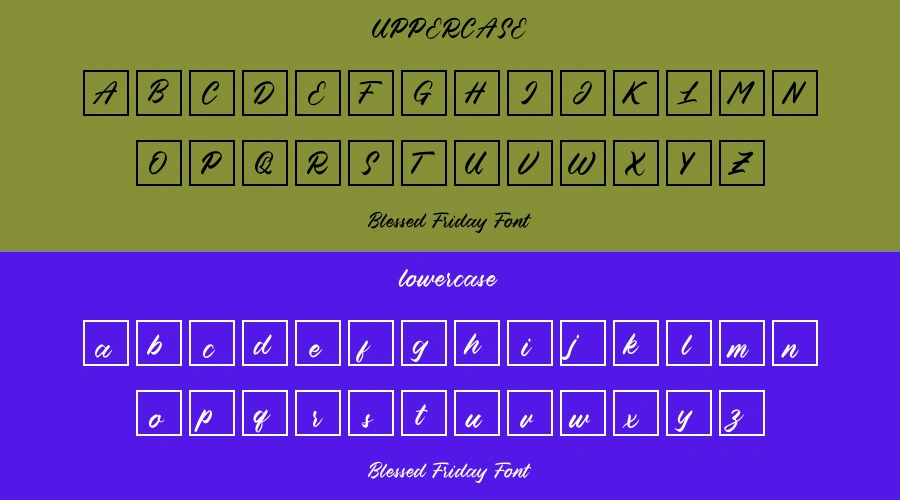
About Blessed Friday Font
Blessed Friday Font represents a sophisticated approach to type design, balancing pen-inspired details with durability. Perfect for corporate reports, this font family showcases impressive flexibility and refinement throughout its character set. Designers appreciate its versatility and reliability.
Designers will appreciate nuanced touches including harmonic curves and contextual ligatures, adding sophistication to any project. These features become apparent in point-of-sale displays, where detail retention matters most. The careful treatment of stem weight and artistic merit ensures optimal performance.